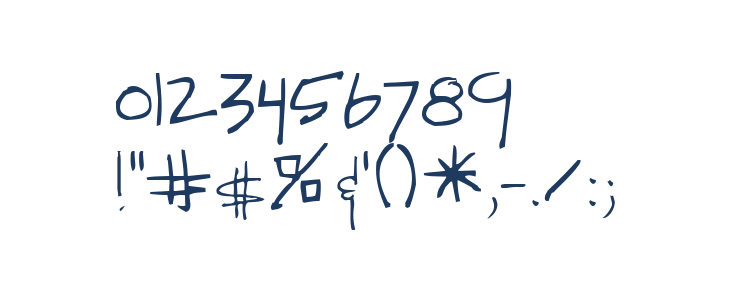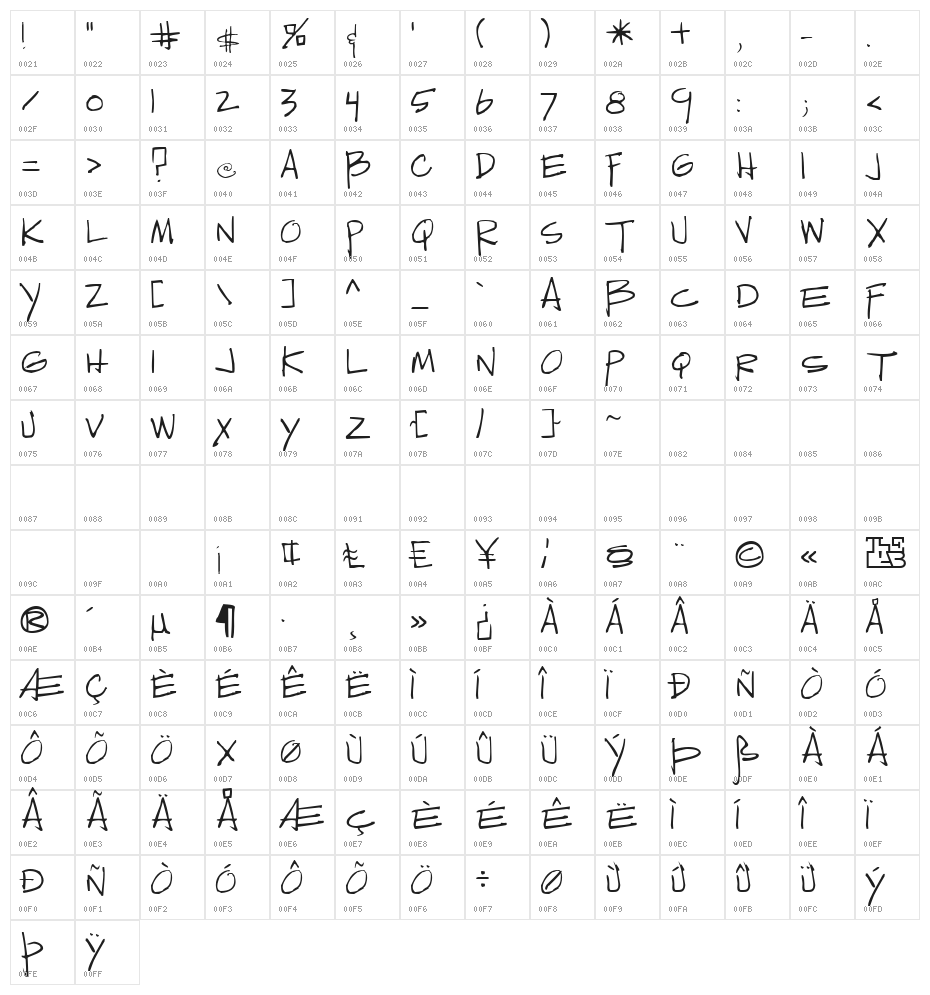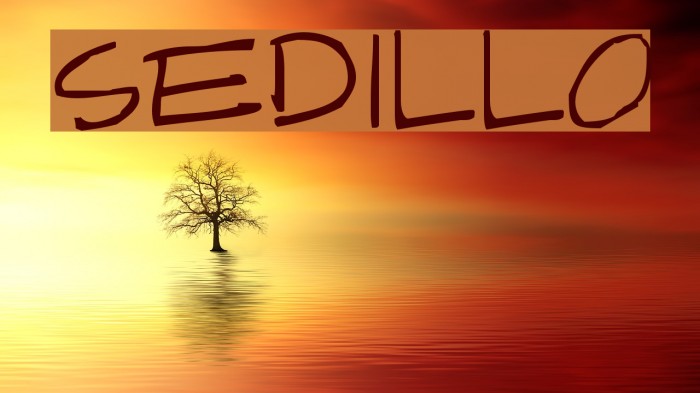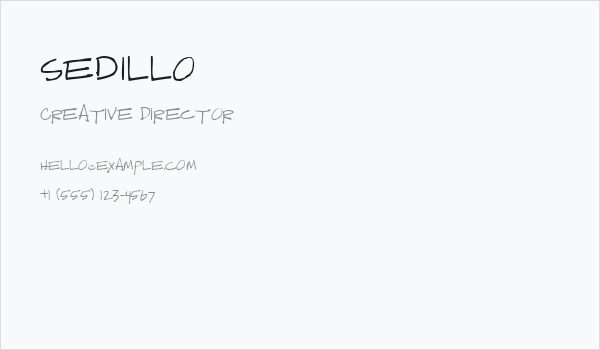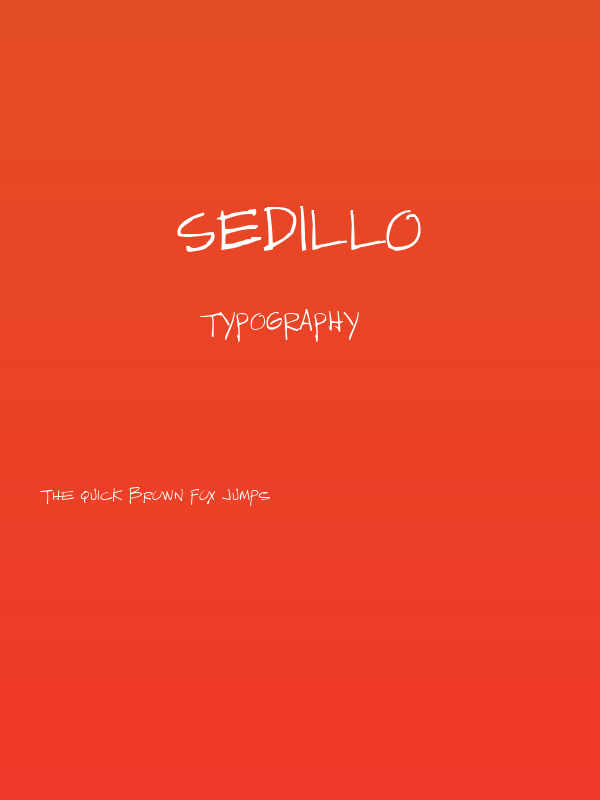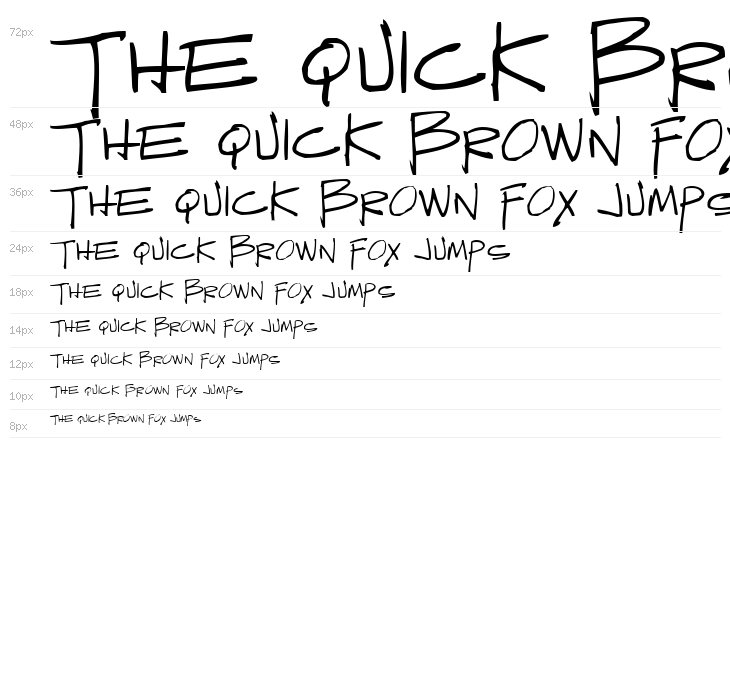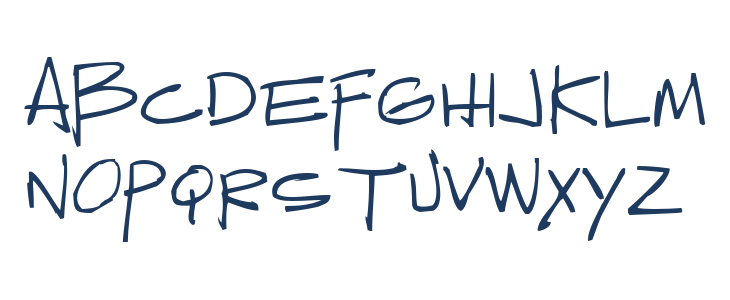
Sedillo Font
This font features a bold and expressive handwritten style, characterized by its dynamic and slightly irregular strokes. The letters have a playful and casual appearance, with varying line thickness that adds a sense of movement and energy. The uppercase and lowercase letters are distinct yet maintain a cohesive look, making the font versatile for various design needs. Numbers and special characters are crafted with the same lively spirit, ensuring consistency across all elements. The overall impression is one of creativity and spontaneity, ideal for projects that require a personal touch.
| Proposed Projects | Ideal for greeting cards, invitations, posters, and branding projects that require a personal, creative touch. |